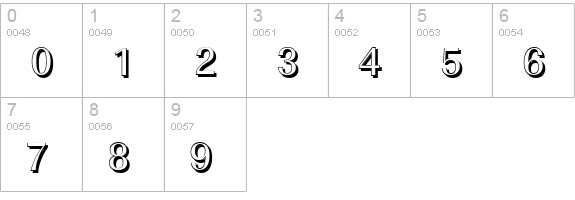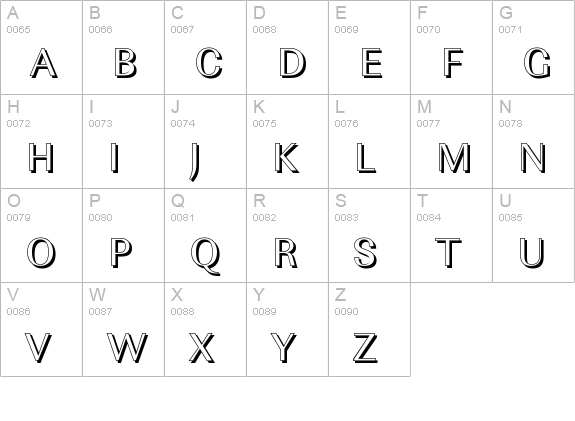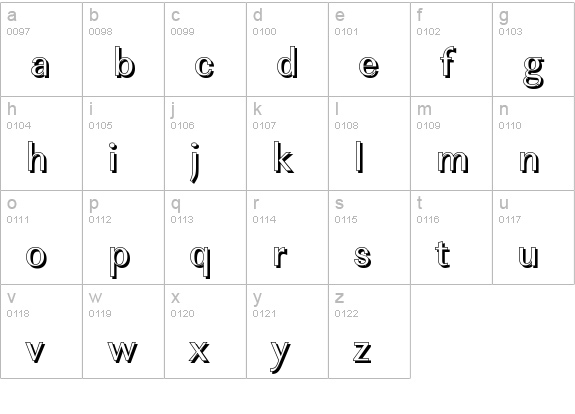
ImperialSh-Regular is the standard, neutral variant in the ImperialSh typeface family \xE2\x80\x94 well suited to general body text, paragraphs, and standard typographic work.
ImperialSh-Regular is a classic and elegant font that exudes sophistication and style. With its clean lines and timeless appeal, this font is perfect for a wide range of design projects, from branding to editorial work. Its bold and distinctive letterforms make a statement while maintaining readability and professionalism. The best part about ImperialSh-Regular font is that it is completely free to download at FontsMarket.com. This means you can access this high-quality font without any cost, making it a valuable addition to your font library. Whether you're a designer looking to elevate your projects or a business in need of a refined typography choice, ImperialSh-Regular is a versatile and reliable option that won't break the bank. Download ImperialSh-Regular font today from FontsMarket.com and discover the endless possibilities it offers for your creative endeavors.